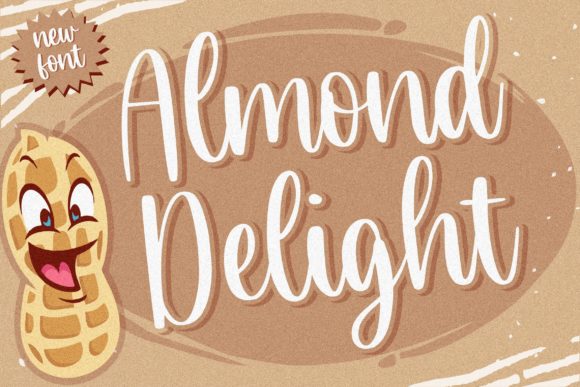
Introducing Almond Delight Font, the epitome of elegance and sophistication in the world of fonts. Created by the talented Balpirick, this script font is a true work of art that is bound to captivate your heart and inspire your creative endeavors.
With its incredibly distinct and delicate design, Almond Delight Font stands out from the crowd, making it the perfect choice for those seeking a font that exudes charm and uniqueness. Its timeless handwritten style adds a touch of class to any project, whether it's designing exquisite wedding invitations or crafting beautiful stationary art.
But that's not all – Almond Delight Font is a versatile gem that offers endless possibilities. Its graceful curves and flowing lines lend themselves perfectly to creating eye-catching social media posts that will leave your followers in awe. Imagine the attention your content will receive when you present it with this font that effortlessly blends style and substance.
Are you tired of mundane and ordinary resumes? Look no further, as Almond Delight Font is the answer to your search for the best font for a fancy resume. With its elegant strokes and intricate details, this font will elevate your resume to a whole new level, leaving a lasting impression on potential employers. Stand out from the competition and showcase your skills in a way that is both professional and visually stunning.
But the allure of Almond Delight Font doesn't stop there. Its versatility extends beyond traditional mediums, allowing you to explore new horizons and unlock your creativity. Whether you're designing captivating book covers, crafting memorable logos, or transforming simple quotes into works of art, this font will be your trusted companion throughout your creative journey.
Embrace the emotions that Almond Delight Font evokes – elegance, sophistication, and timelessness. Let it be the muse that inspires you to create masterpieces that are truly one-of-a-kind. Join the countless designers, artists, and creatives who have fallen under the spell of this captivating font.